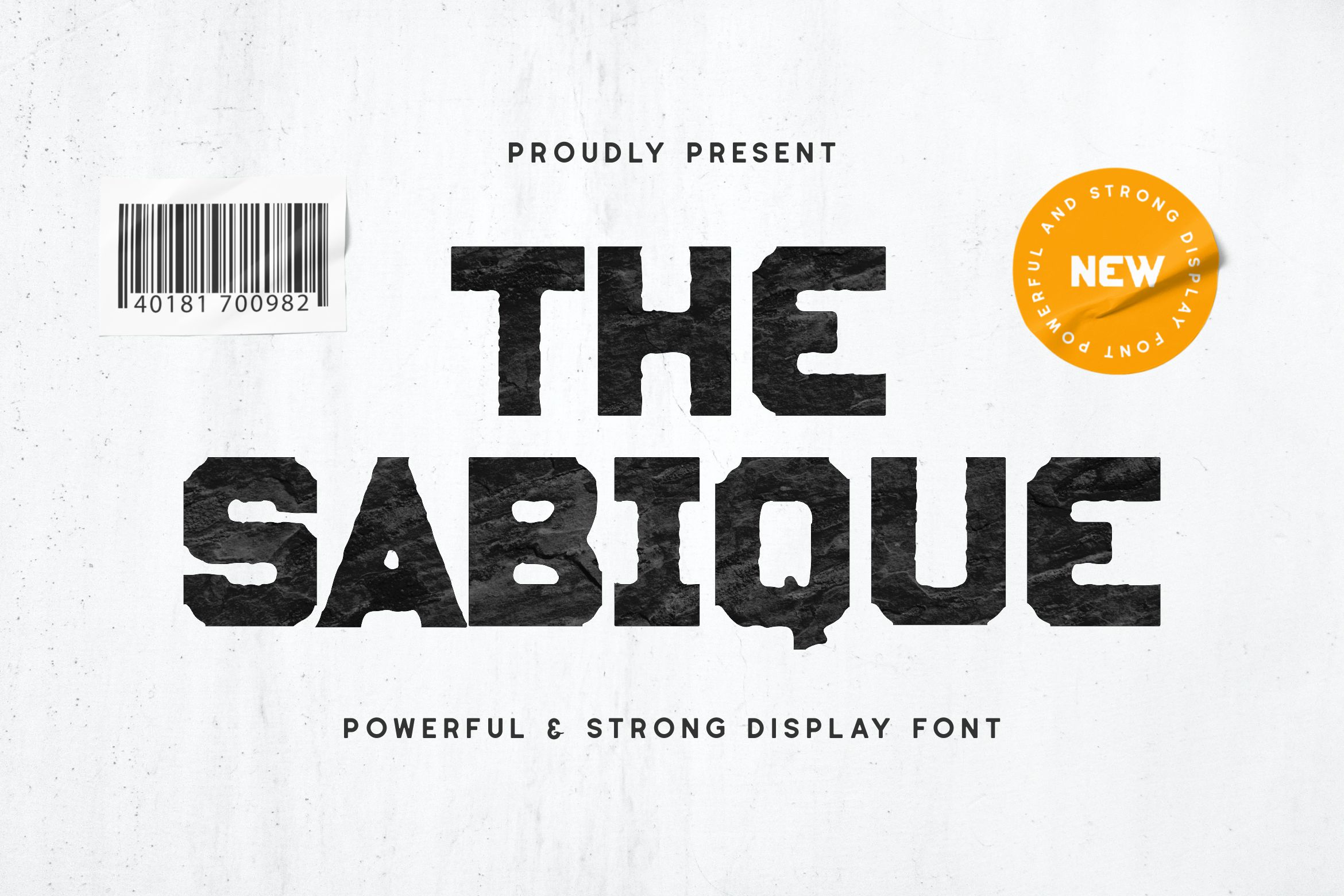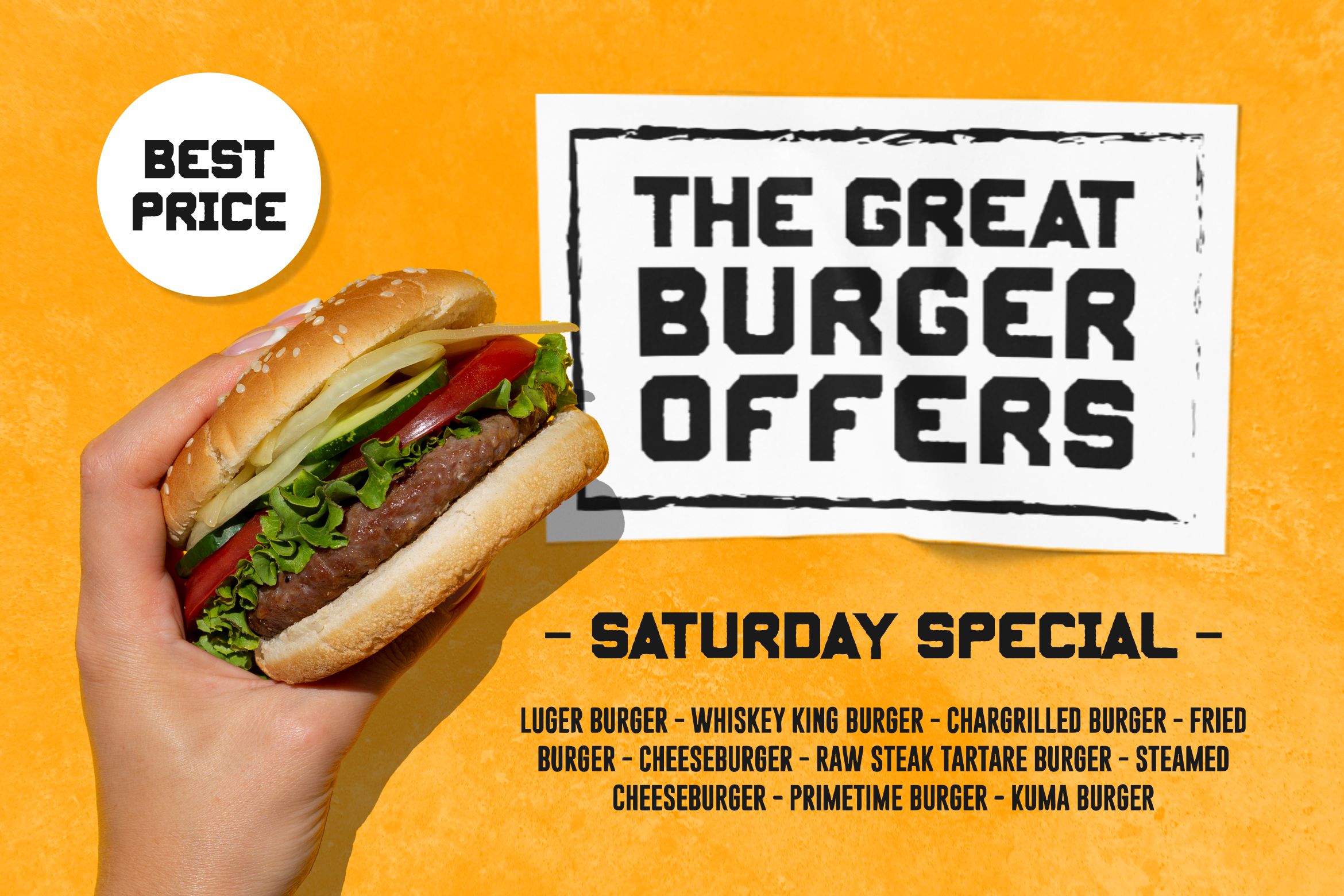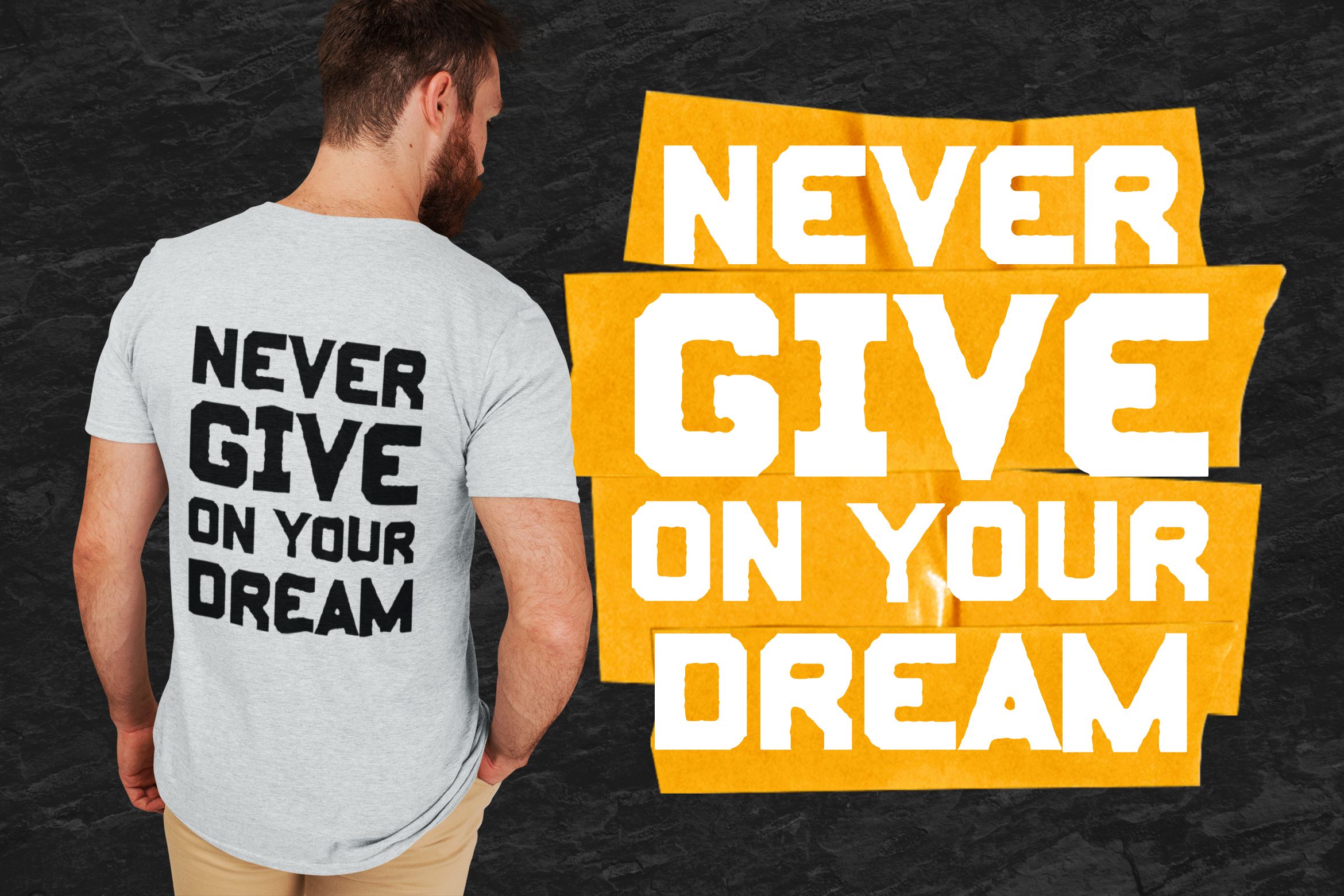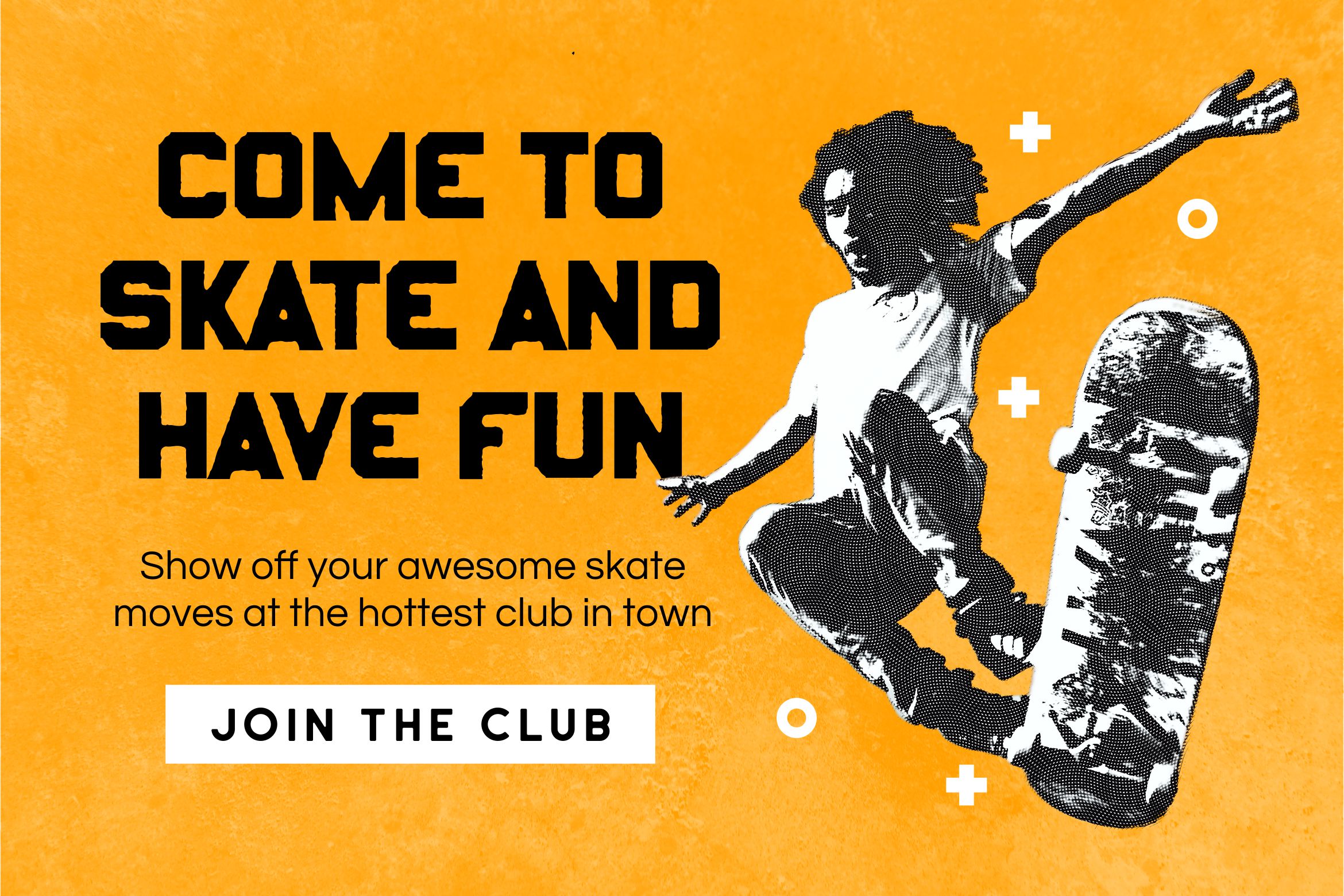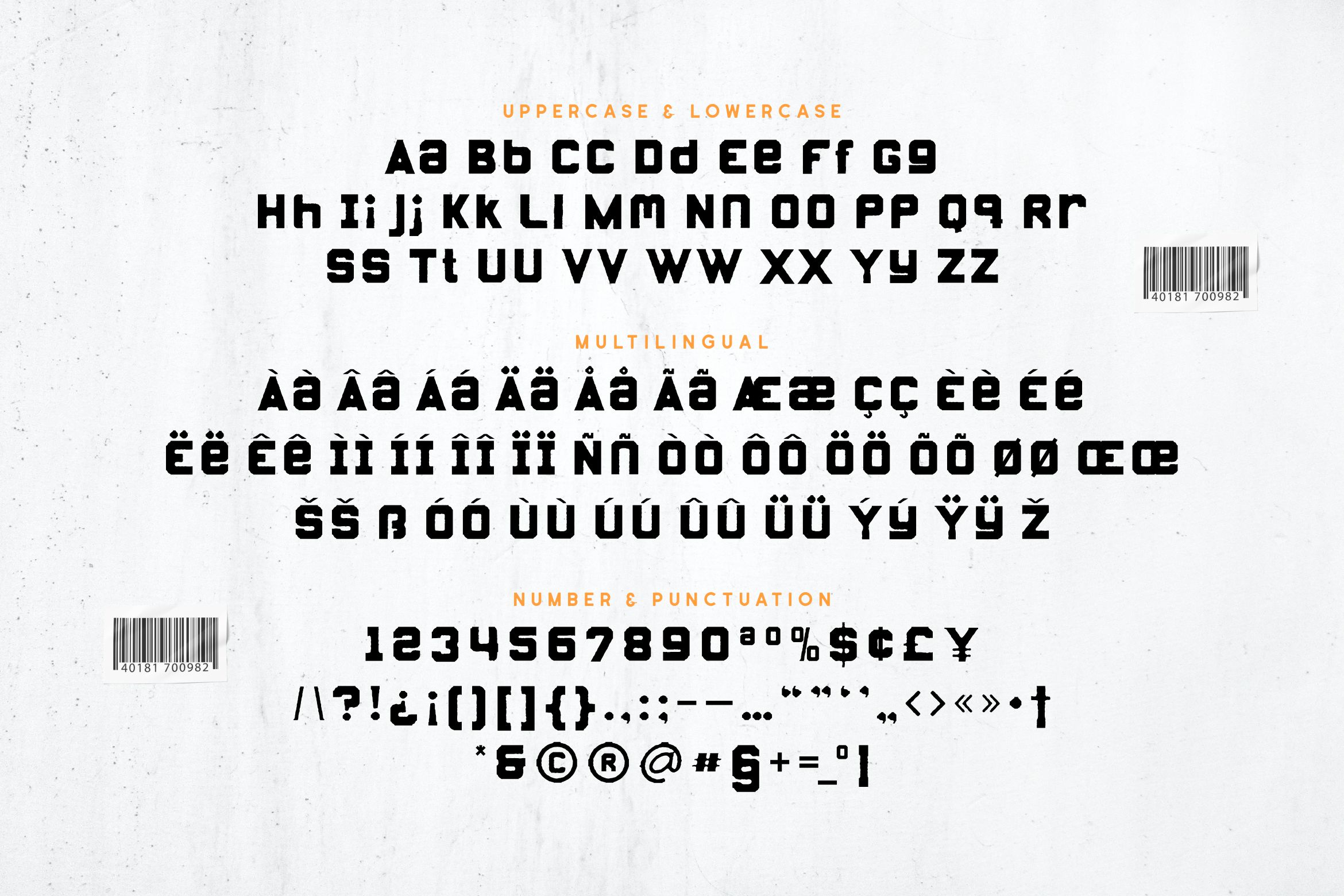
The Sabique is a powerful and rugged display font that commands attention. With bold, sharply cut characters and a distressed texture, this typeface brings a raw and industrial edge to any design. It’s perfect for headlines, branding, signage, and apparel that needs to convey strength, masculinity, and energy.
Inspired by concrete textures and streetwear aesthetics, The Sabique supports multilingual characters, punctuation, and numerals. Whether used for skate culture promos, burger brands, or athletic campaigns, this font delivers a gritty, confident tone that makes your message impossible to ignore.